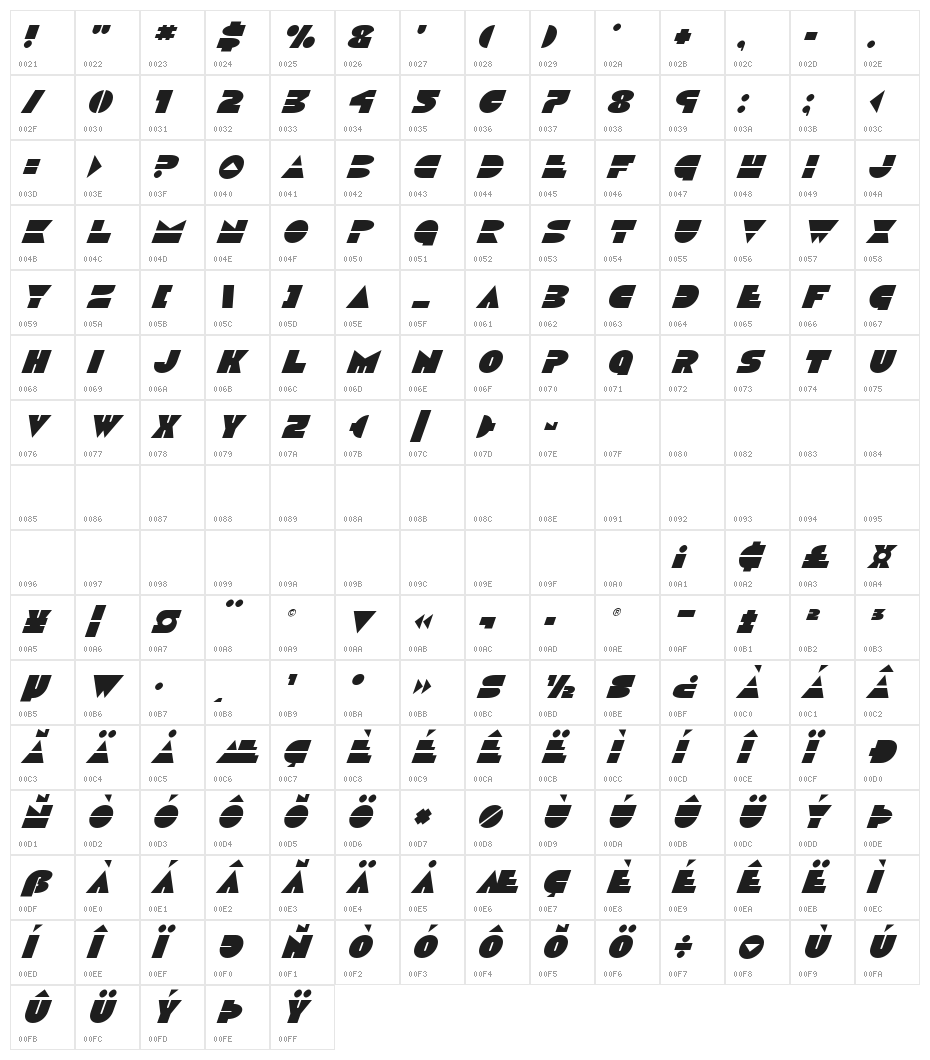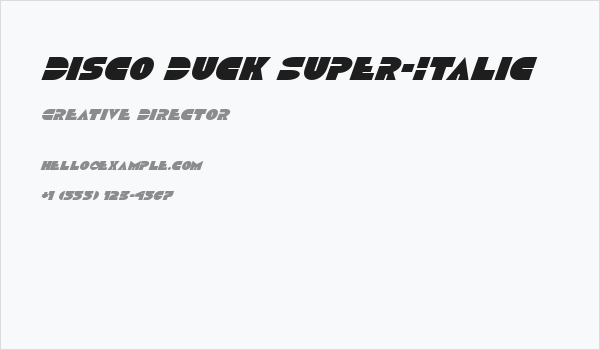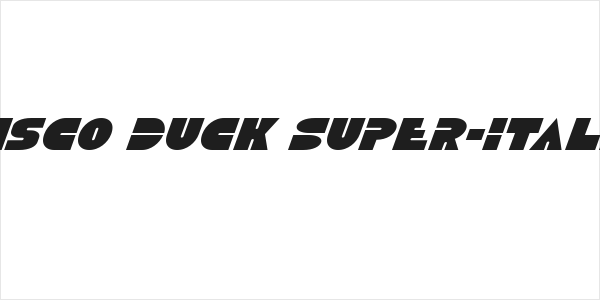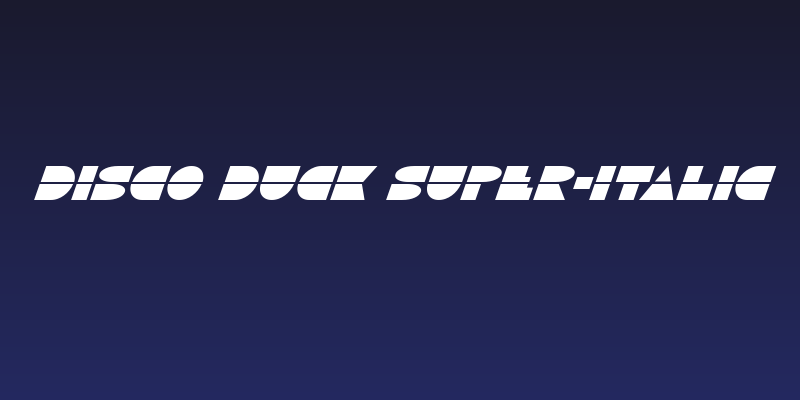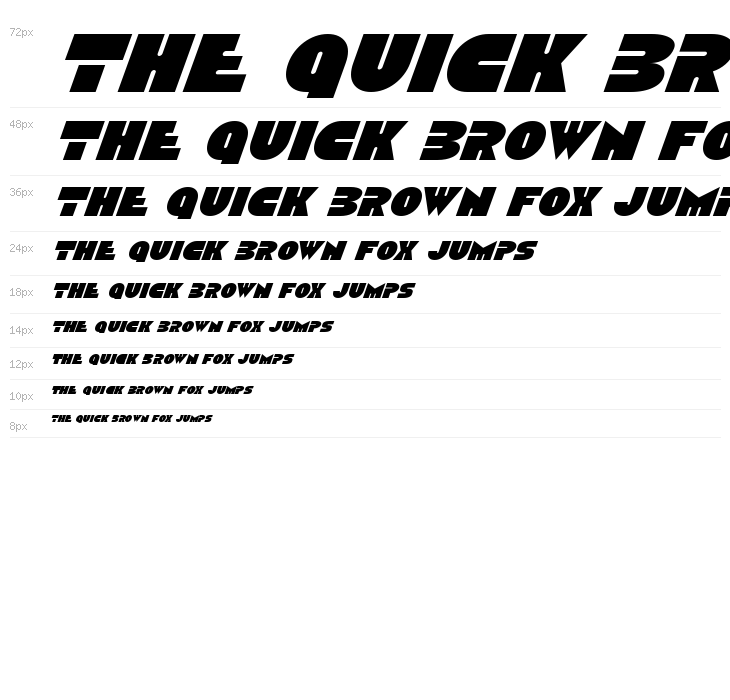
Disco Duck Super-Italic Font
Disco Duck Super-Italic Description
This font features a bold and dynamic style with a distinct geometric flair. The characters are constructed with sharp angles and a strong sense of movement, giving it a futuristic and energetic appearance. The italic slant adds to its dynamic nature, making it ideal for projects that require a sense of speed and modernity. The uppercase and lowercase letters maintain a consistent design, ensuring readability while still being visually striking. The numbers and special characters follow the same design principles, providing a cohesive look across all elements.
| Proposed Projects | Ideal for use in modern branding, sports team logos, dynamic posters, and futuristic-themed designs. |